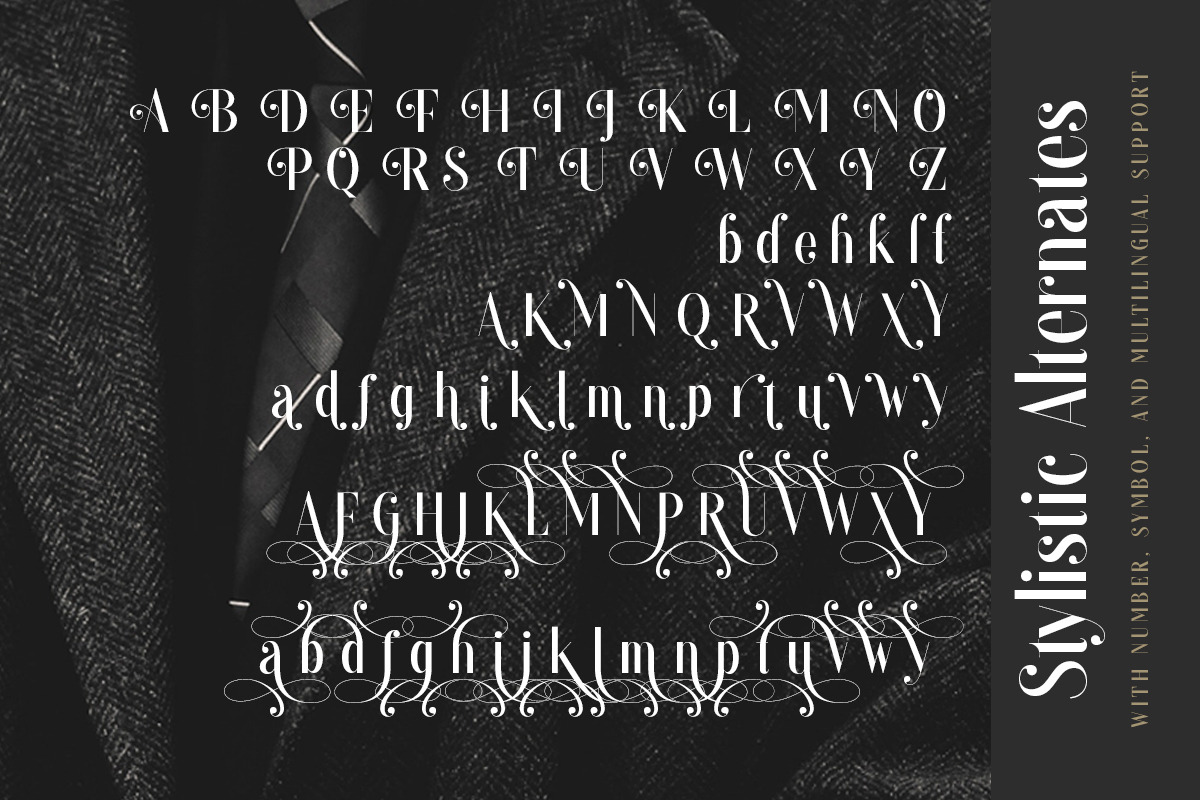
Dropgray - A Stylish Sans
Introducing, brand new sans serif, Dropgray - an elegant sans serif with a bunch of alternates!
Dropgray is a minimalist and elegant sans serif with a bunch of alternates that will make your presentation or logo even more stunning and stand out! Dropgray also support Multi Language. and already PUA Encoded!
- Multi language
- Alternates for each characters